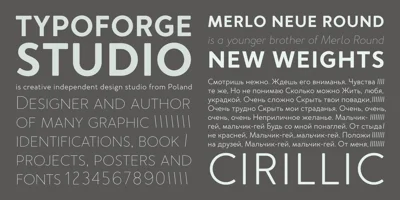
Merlo Neue Round Font
The Merlo Neue Round Font is an exceptional choice for projects that need a modern, friendly, and clean aesthetic. Its soft, rounded edges and geometric structure make it highly versatile for a wide range of applications, including app design, tech branding, and contemporary editorial layouts. This font's approachable and welcoming character is perfect for brands that want to convey a sense of warmth, innovation, and trust. Whether you're designing a clean user interface or a compelling brand identity for a new startup, the Merlo Neue Round Font ensures your message is delivered with a sense of purpose and sophistication.
What makes this font so exciting is its exceptional balance of soft forms and professional functionality. The Merlo Neue Round Font features letterforms that are not only aesthetically pleasing but also incredibly legible at any size. The uniform strokes and rounded terminals give it a distinct personality that is both modern and friendly. This makes it an ideal workhorse font for both headlines and body text, allowing you to create a cohesive and professional design system. It’s a font that works hard to enhance your design without distracting from the content, ensuring a polished and effective result every time.
The Merlo Neue Round Font family is comprehensive, providing a full suite of weights and styles to give you maximum creative control. The family typically includes a wide range of weights from thin to bold, with corresponding italic versions. This extensive variety is essential for creating a strong typographic hierarchy in your designs. You can use the lighter weights for subtle accents and long-form text, while the bolder weights are perfect for creating powerful headlines and calls-to-action. The Merlo Neue Round Font is a perfect way to explore the versatility of this typeface and see how its different styles can work together to build a strong and cohesive brand identity.
By choosing the Merlo Neue Round Font, you’re opting for a typeface that embodies modern design principles with its clean lines and approachable appeal. It’s a font that works tirelessly to ensure your projects are not only beautiful but also highly effective at communicating your message.